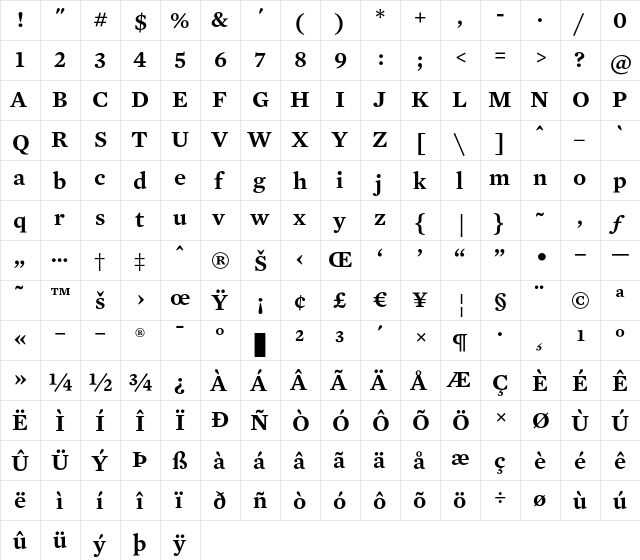
Mercury Text G1 Semibold
Design Context for Mercury Text G1 Typeface
Mercury Text G1 offers clean, dependable letterforms without strong stylistic allegiance, making it a practical choice for designers who need flexibility. The heavy weight commands attention and anchors typographic hierarchies.
Pro Tip: Use Mercury Text G1 in both headline and body roles to test its range before committing to a single application.